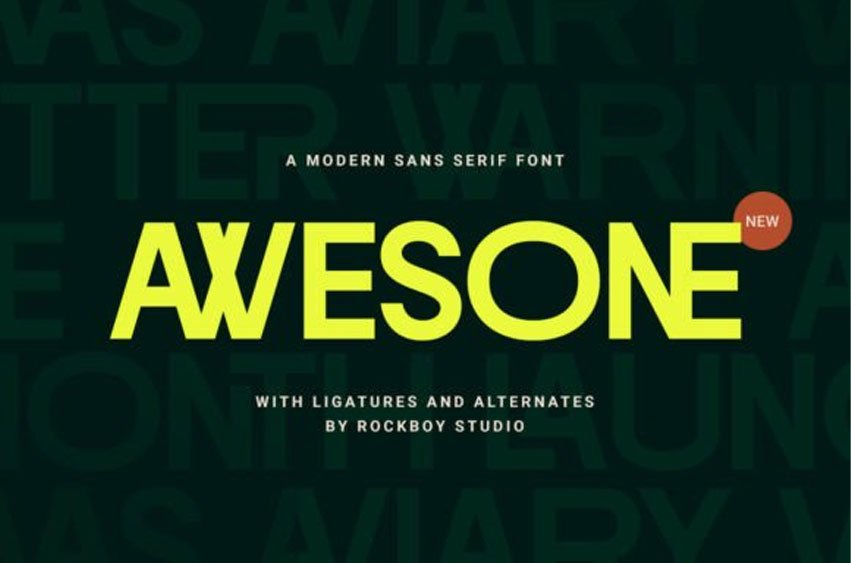
Awesone Font is a sleek and modern sans serif typeface that merges bold style with clean lines for a contemporary look. Crafted for maximum versatility, it’s perfect for eye-catching headlines, branding projects, website headers, and more.
With a host of ligatures and alternates, Awesone lets you personalize your text and achieve a truly unique aesthetic. Whether you’re aiming for a minimalistic vibe or an edgy, futuristic feel, its refined letterforms will adapt seamlessly to your creative vision.